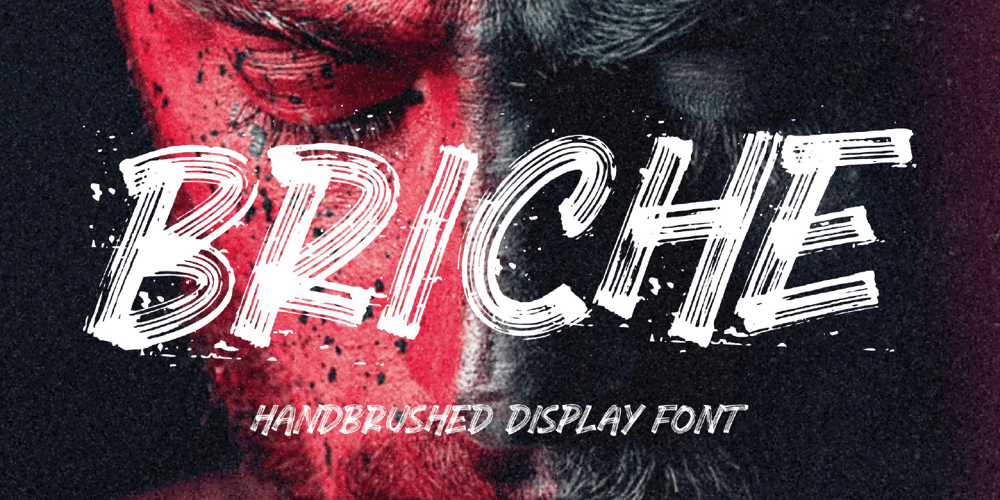
Briche
Briche font
Briche Font Family was designed by Annas Alam Yahya and published by Letteralle. Briche contains 1 styles and family package options. I’d like to introduce you Brich! a handbrushed display font. Font with natural detail and texture and masculine style. brich imitates the brush pen and makes it clean in every appearance, this font fits perfectly into any background. Brich also comes with an underline swash, you can type _1 -_6 to bring up.Brich is perfect for many design needs such as merch, T-shirts, titles, book covers, social media posts, websites, events, and many more.Enjoy the font,Thanks!